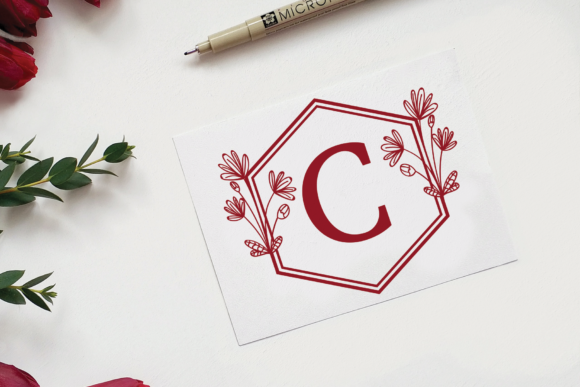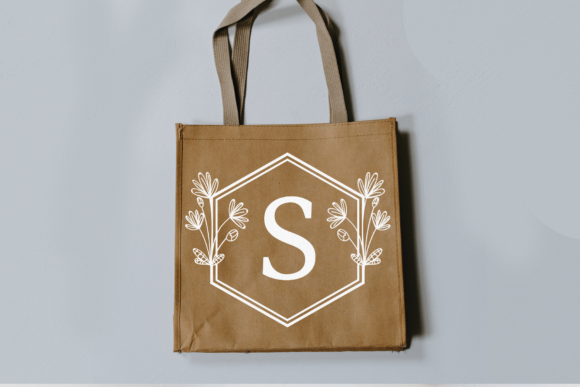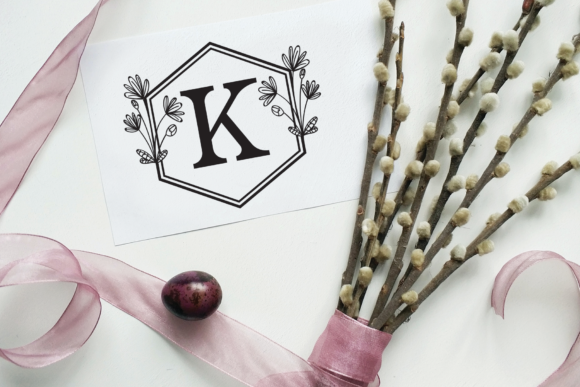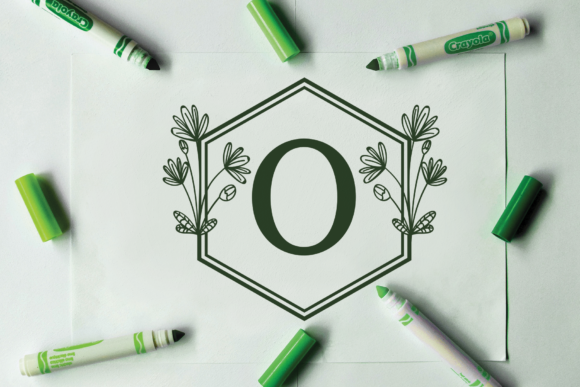
Introducing Beauty Font: Elevate Your Designs with Elegance and Romance
Are you a designer, crafter, or someone who loves to add a personal touch to their creations? Look no further! We’re excited to introduce you to Beauty Font, a stunning and chic decorative font that’s perfect for adding a romantic and lovely touch to your designs. Whether you’re working on love letters, wedding invitations, or any other design project, Beauty Font is sure to impress.
What Makes Beauty Font So Special?
Beauty Font is a beautiful and elegant font that’s designed to make your designs stand out. Its romantic and lovely appearance is perfect for any project that requires a touch of sophistication and whimsy. With Beauty Font, you can add a personal and emotional touch to your designs, making them truly unforgettable.
Perfect for Love Letters and Wedding Invitations
Love letters and wedding invitations are special occasions that deserve a font that’s just as special. Beauty Font is designed to capture the essence of love and romance, making it the perfect choice for:
- Love letters: Add a touch of romance and elegance to your love letters with Beauty Font.
- Wedding invitations: Make your wedding invitations truly unforgettable with this beautiful and chic font.
- Anniversary cards: Celebrate your special moments with a font that’s as romantic as the occasion.
Beauty Font is not just limited to love letters and wedding invitations. Its versatility makes it perfect for a wide range of design projects, including:
- Stationery: Add a touch of elegance to your stationery with Beauty Font.
- Signs: Create beautiful signs for your business or home with this lovely font.
- Posters: Make your posters stand out with Beauty Font’s romantic and eye-catching design.
- Social media graphics: Add a personal touch to your social media graphics with this beautiful font.
Why Choose Beauty Font?
With so many fonts to choose from, why should you choose Beauty Font? Here are just a few reasons:
- Unique and elegant design: Beauty Font is a one-of-a-kind font that’s sure to make your designs stand out.
- Romantic and lovely appearance: This font is perfect for any project that requires a touch of romance and whimsy.
Here are a few tips and tricks to help you get the most out of Beauty Font:
- Experiment with different sizes and colors: Find the perfect combination to make your designs pop.
- Pair with other fonts: Combine Beauty Font with other fonts to create a unique and eye-catching design.
- Use it sparingly: Don’t be afraid to use Beauty Font sparingly to add a touch of elegance to your designs.
In conclusion, Beauty Font is a stunning and chic decorative font that’s perfect for adding a romantic and lovely touch to your designs. With its elegant design and endless possibilities, it’s the perfect choice for designers and crafters of all levels. So why wait? Download Beauty Font today and start creating beautiful designs that will leave a lasting impression!